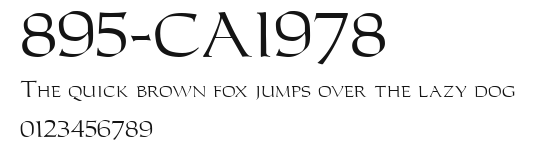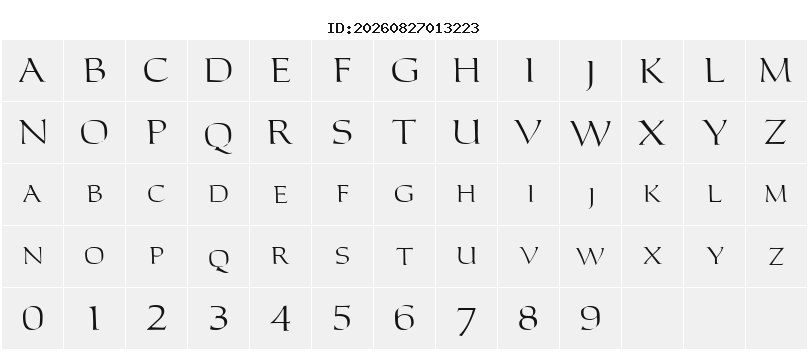
• Font Name: 895-CAI978
• Full Font Name: 895-CAI978
About 895-CAI978.ttf
895-CAI978.ttf is a modern, elegant sans-serif font designed for ultimate readability and visual harmony. Perfect for branding, headlines, web design, and print materials.